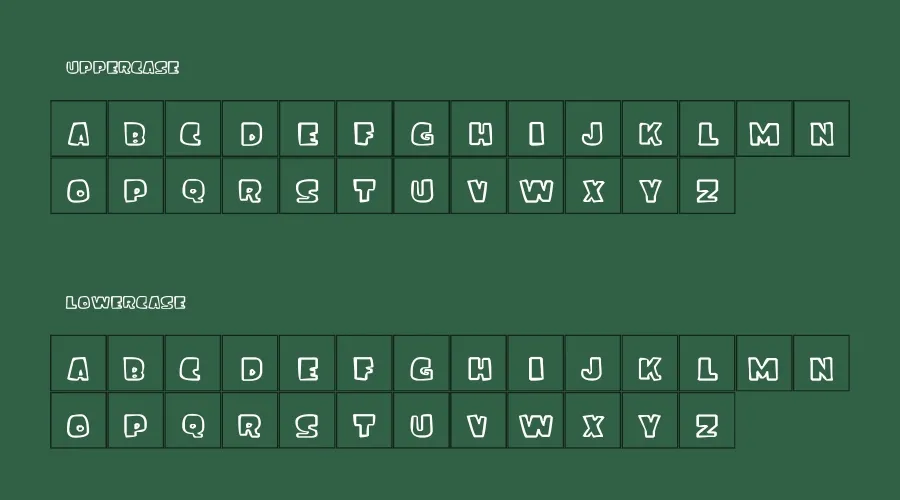
About Ice Age Font
Florian Doyen created Ice Age Font which is a Cartoon text style This typeface contains unique glyphs and characters the design may be an incredible choice for any task that needs a touch of class. Get it and include a stylish touch to the next task basically it is an animated movie that is popular among children.
Also appropriate for artwork and banner design. There are smaller capital letters in it. Using this typeface in combination with fabeldyr 3 font can truly assist you to produce an original and eye-catching style.
Your simple designs will look bold and stylish with this style. It's ideal for giving your work uniqueness as well as making it differentiate itself from other typefaces. Due to its eye-catching design, this typeface is commonly used in a lot of stylish projects.